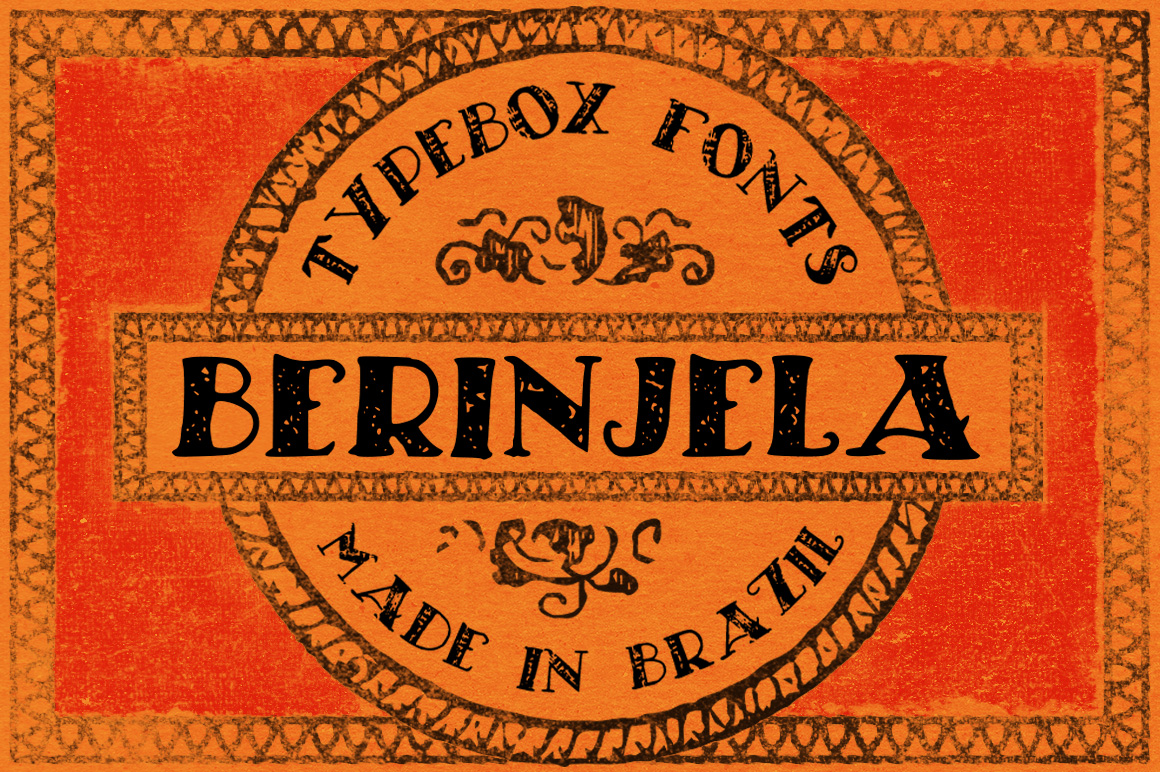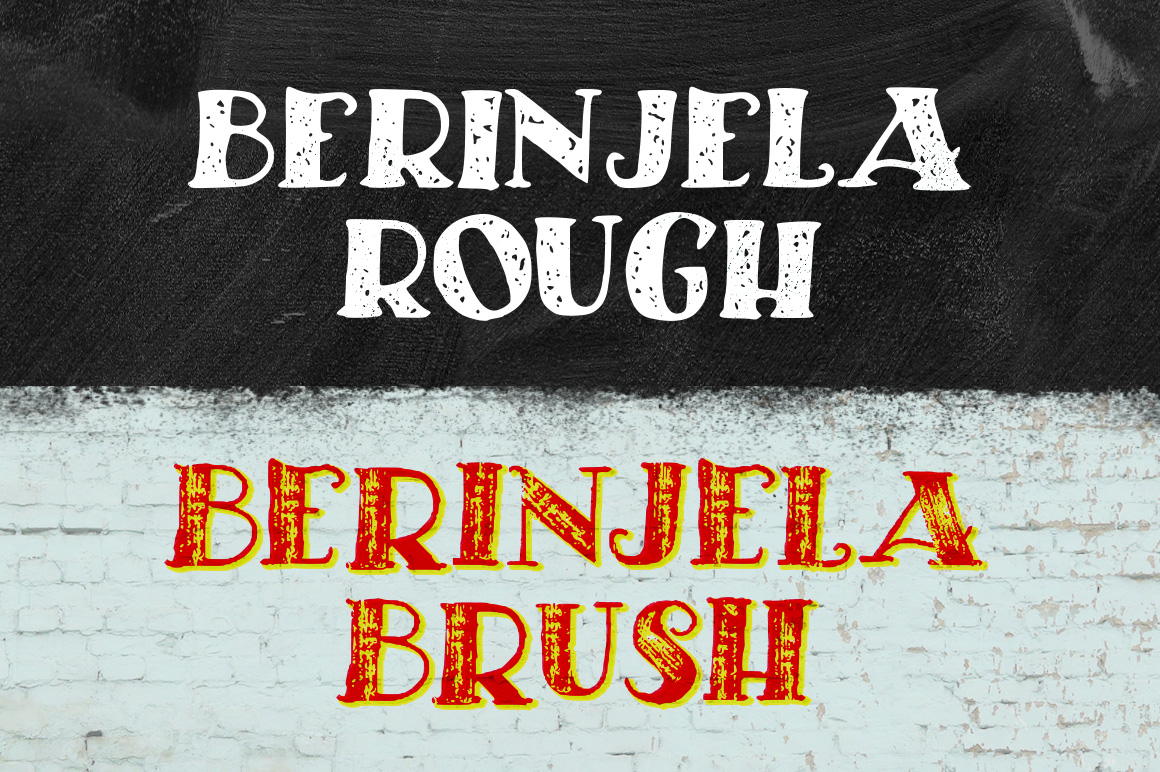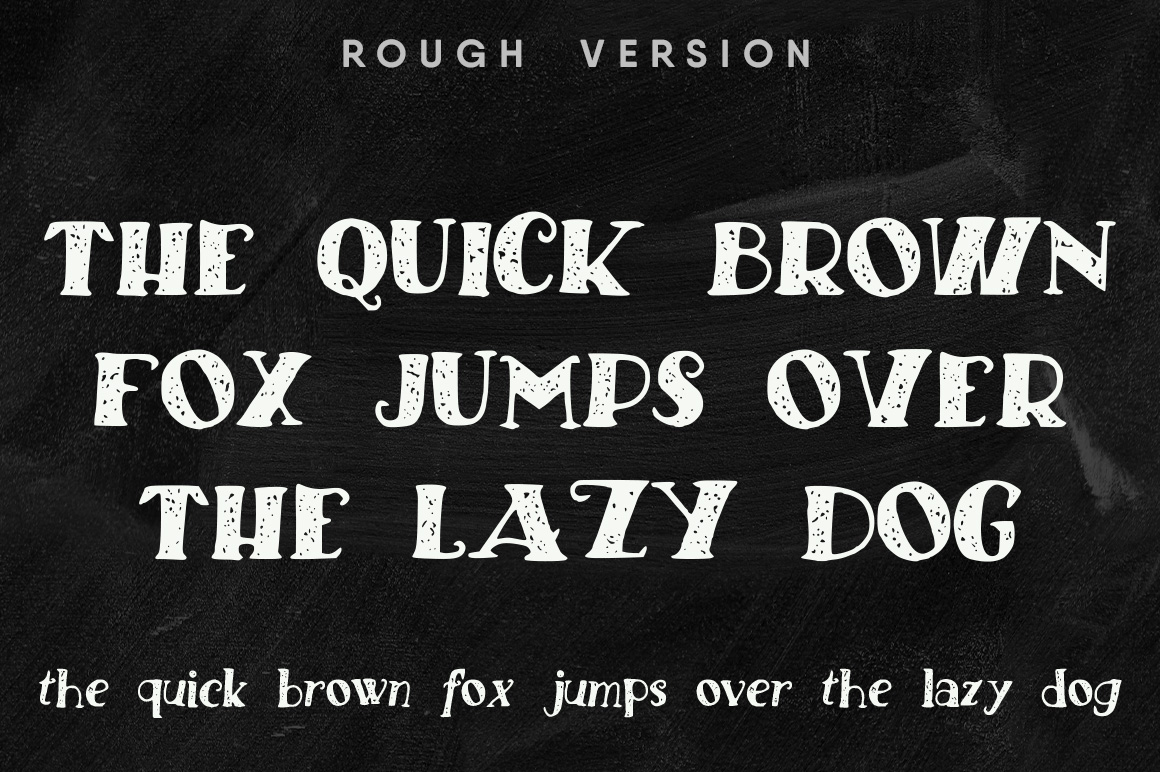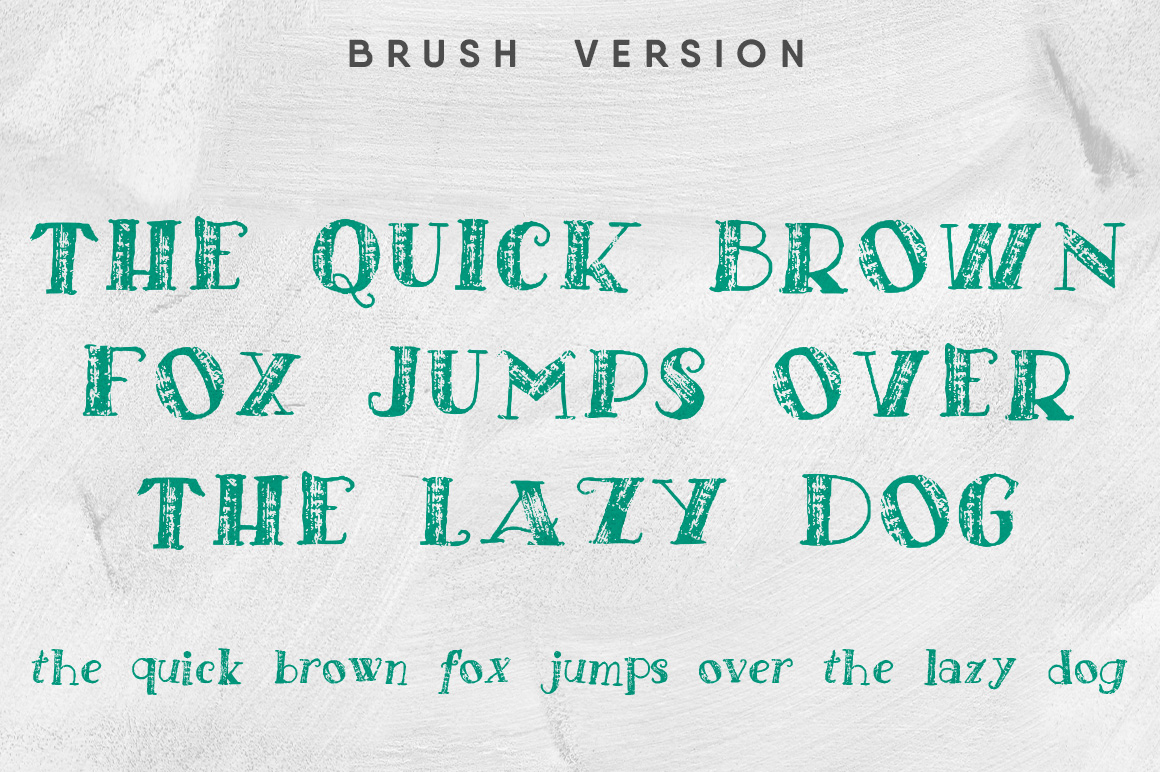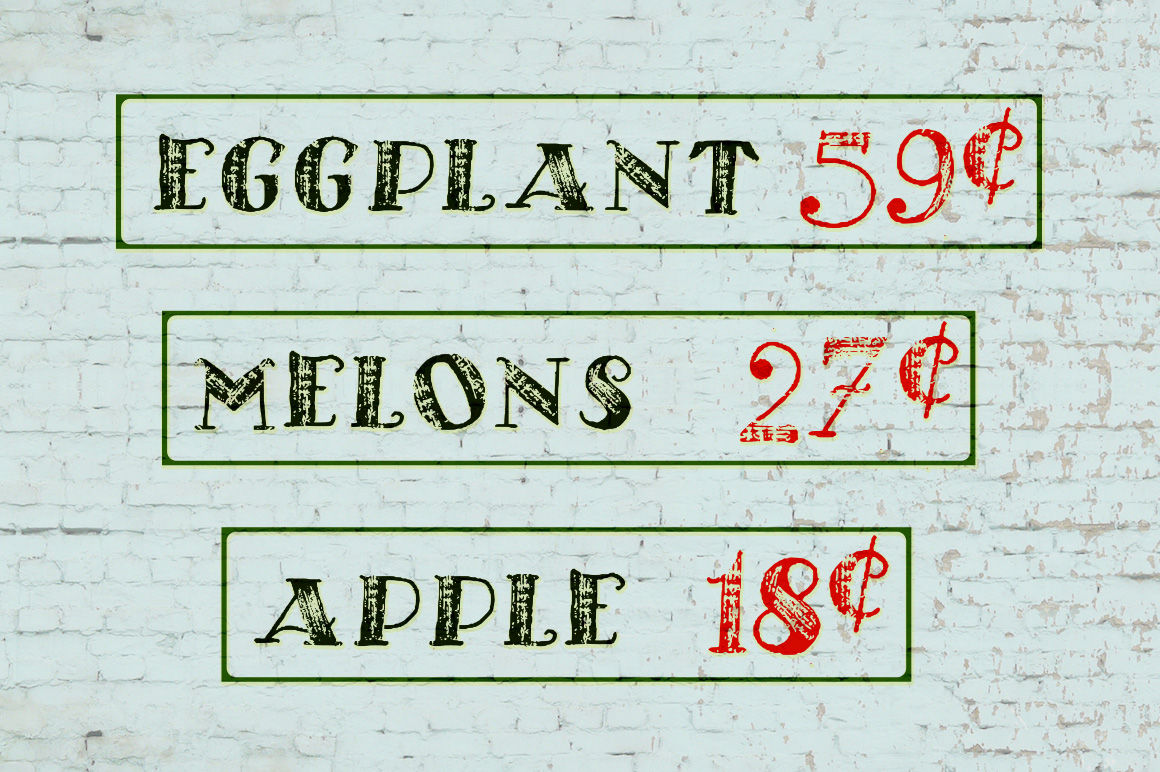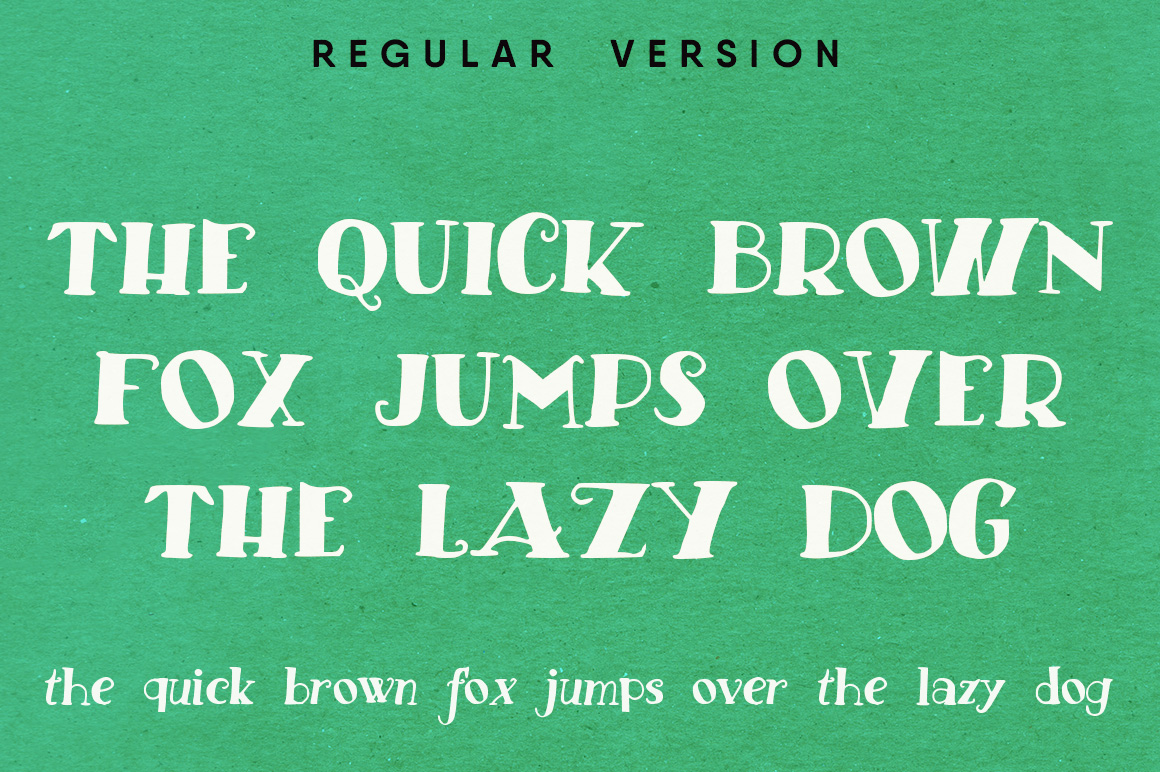
Berinjela Font
About Berinjela Font
Berinjela is a hand drawn family that comes in 3 unique styles:
Regular
Rough
Brush
“Berinjela” (or Beringela) is the Portuguese word for Eggplant. This font is inspired by hand made signs in food markets.